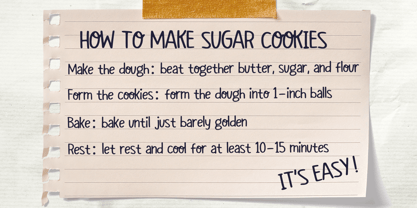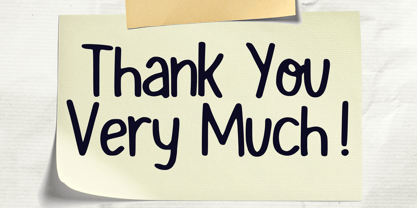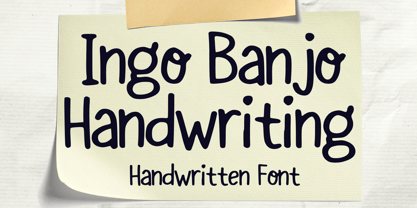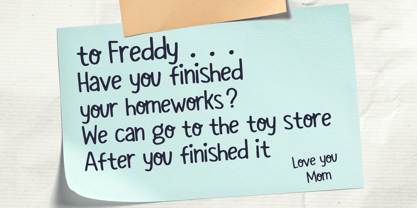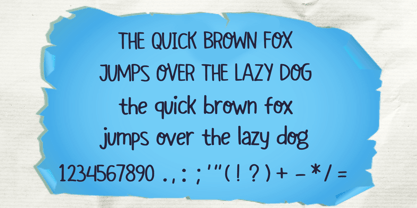
Ingo Banjo Handwriting
by Mvmet
The Ingo Banjo Handwriting Font Family was designed by Gabriel Valentinus and published by Mvmet. Ingo Banjo Handwriting contains 1 styles. More about this family
Immerse yourself in the whimsical charm of Ingo Banjo Handwriting, an engaging pen-style font that infuses any design endeavor with a touch of playfulness and vitality. Perfectly tuned for a diverse array of creative works, this font is the secret ingredient to elevate your projects, making them stand out in awe-inspiring prominence. Whether it's creating intriguing stickers, unique t-shirt designs, or memorable logos, Ingo Banjo Handwriting injects a distinct flavor. It's equally spectacular when used on magazine or book covers, comics, or cartoon illustrations, adding an unparalleled cool quotient to your creations. Ingo Banjo Handwriting – giving your designs the uplift they truly deserve.
Designers: Gabriel Valentinus
Foundry: Mvmet